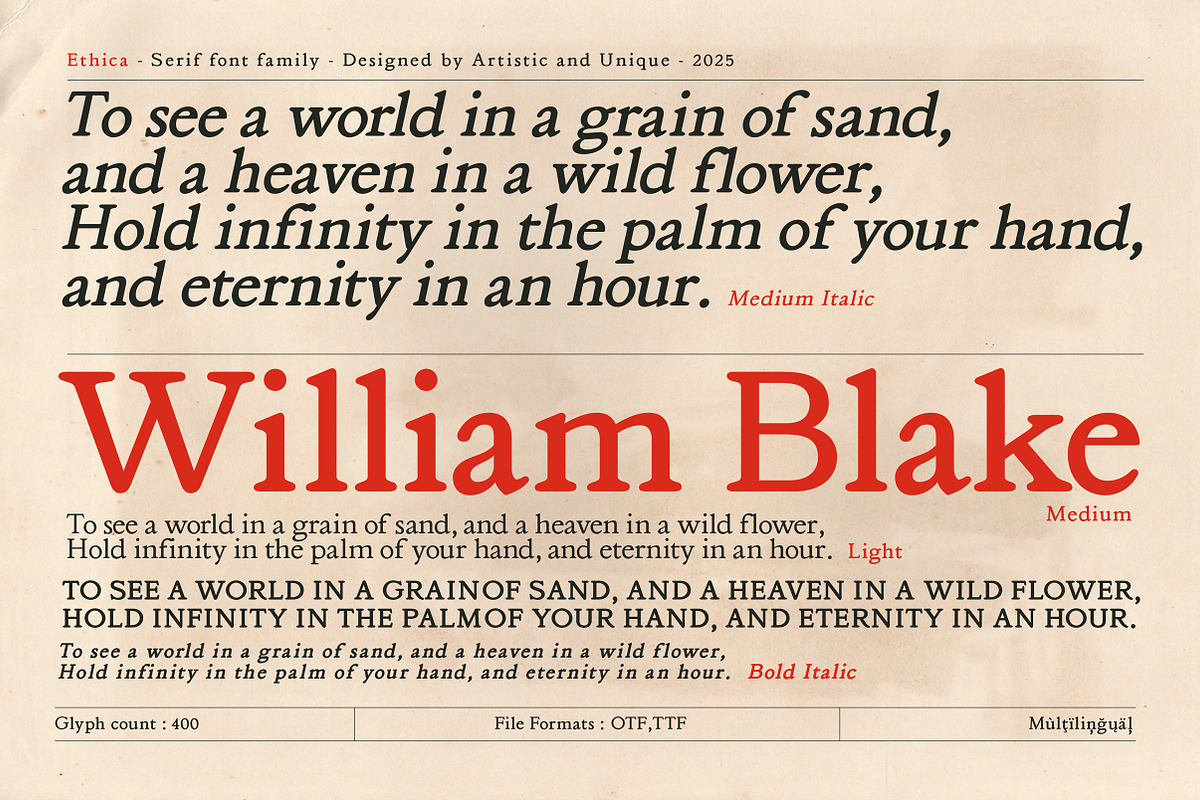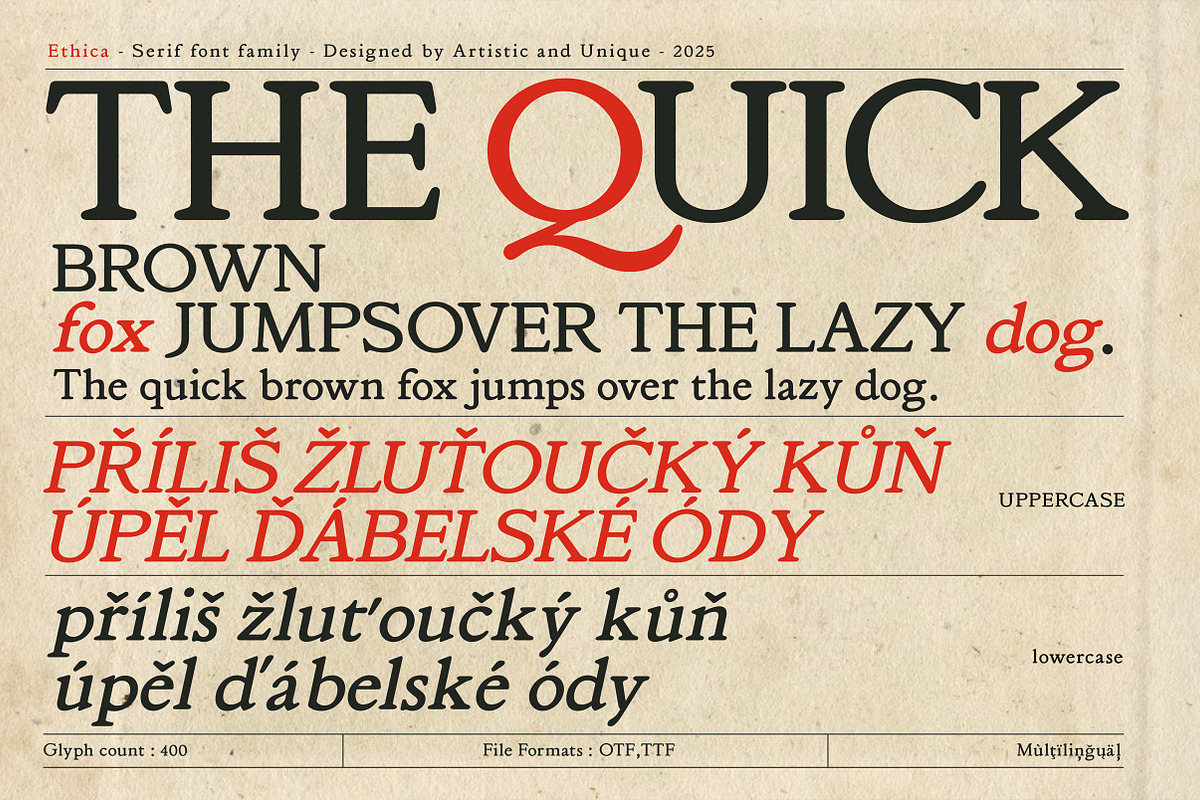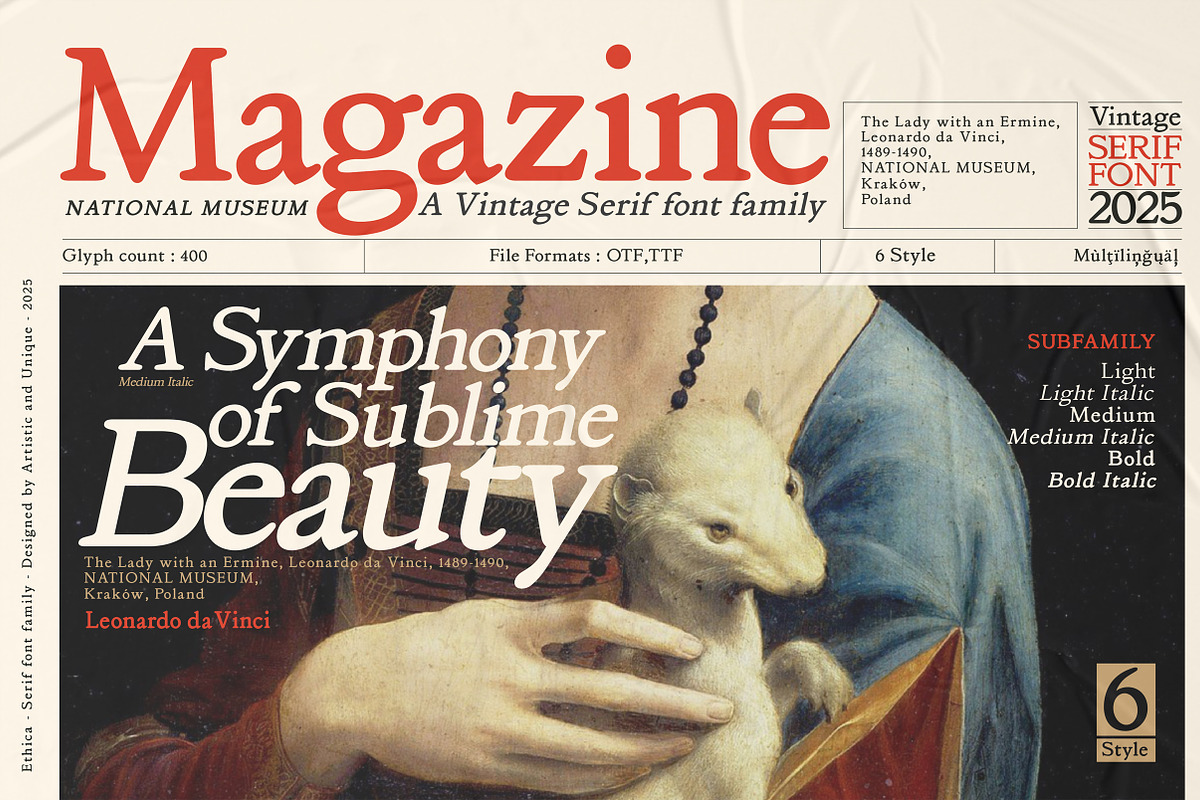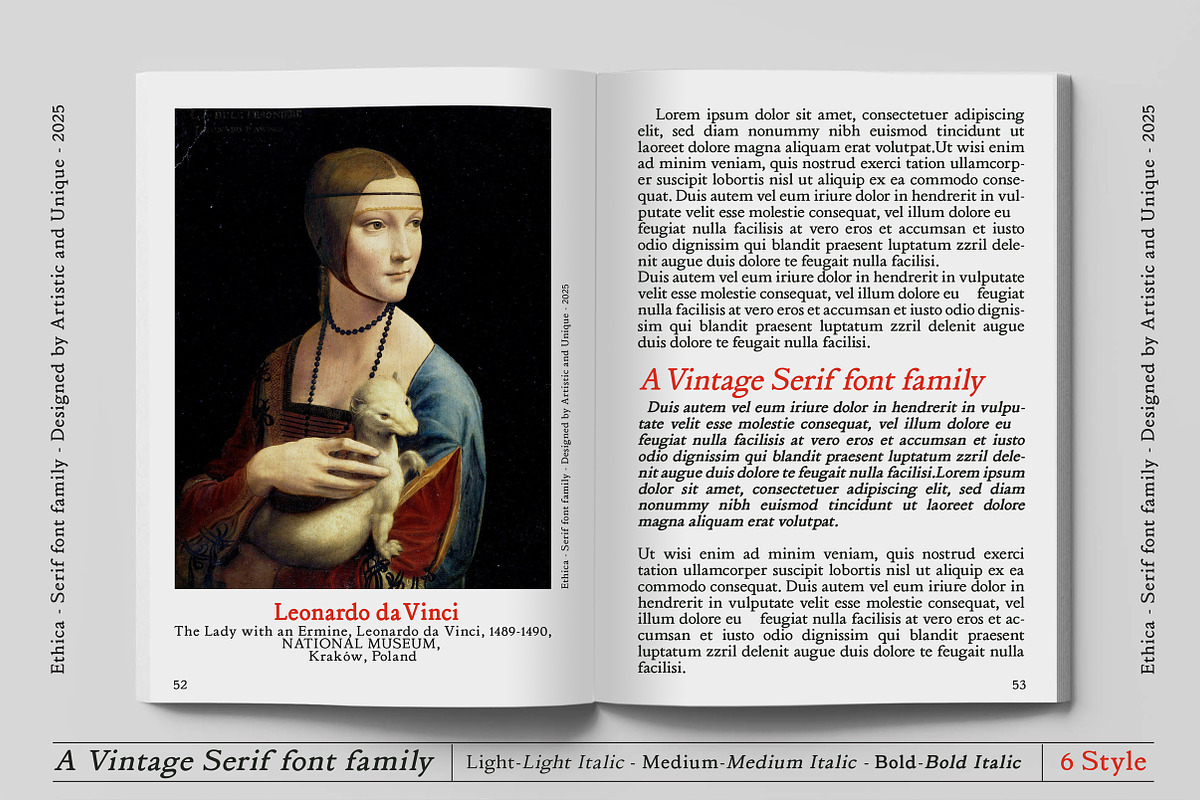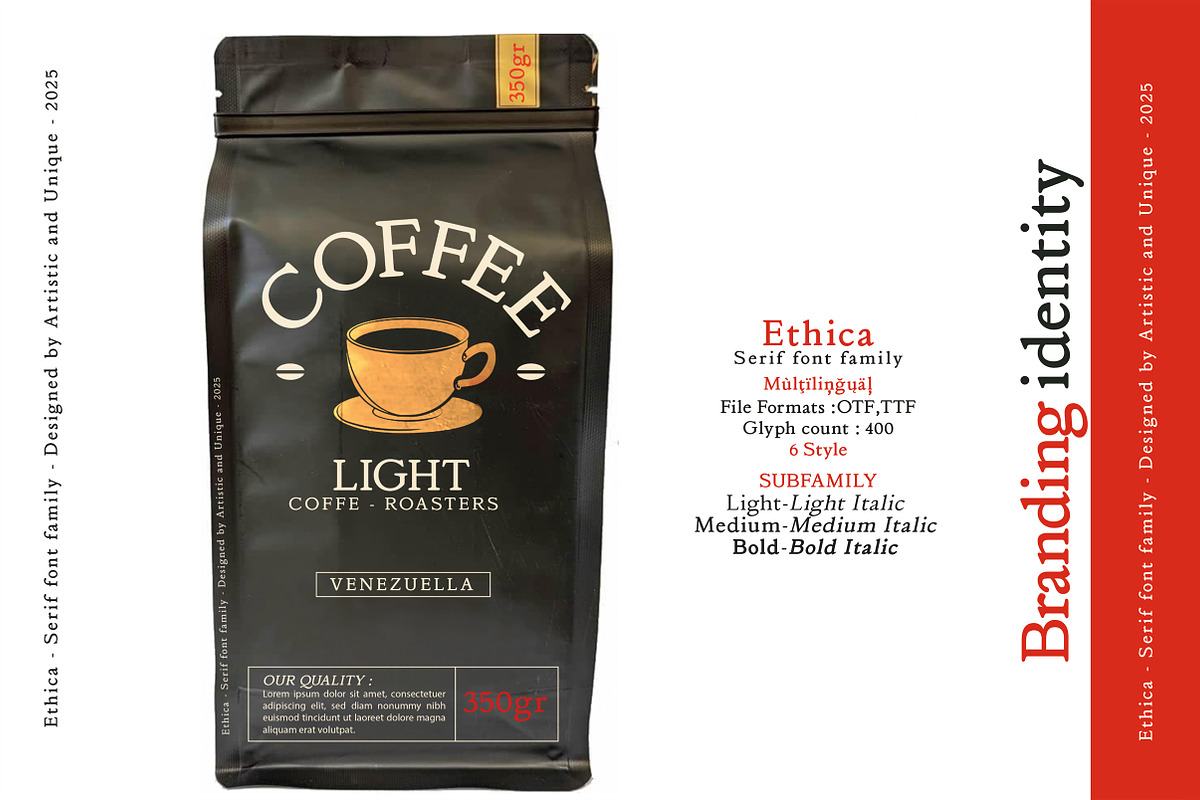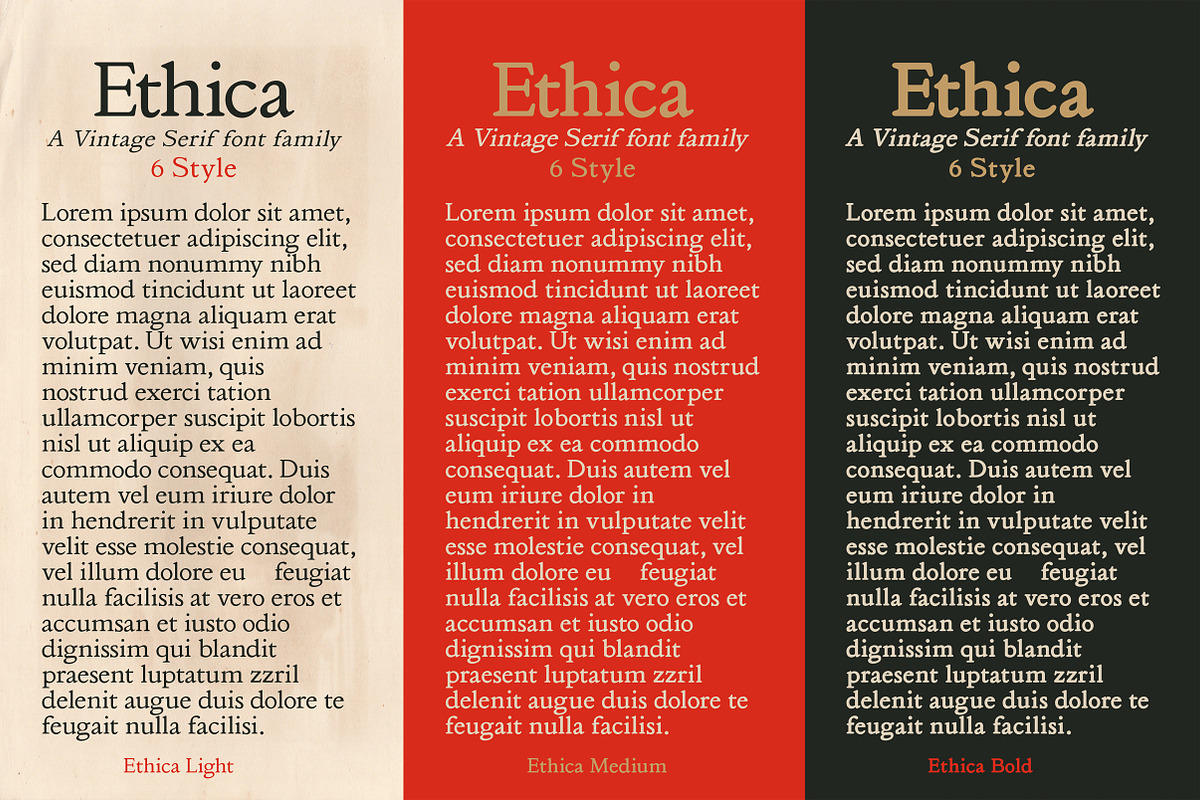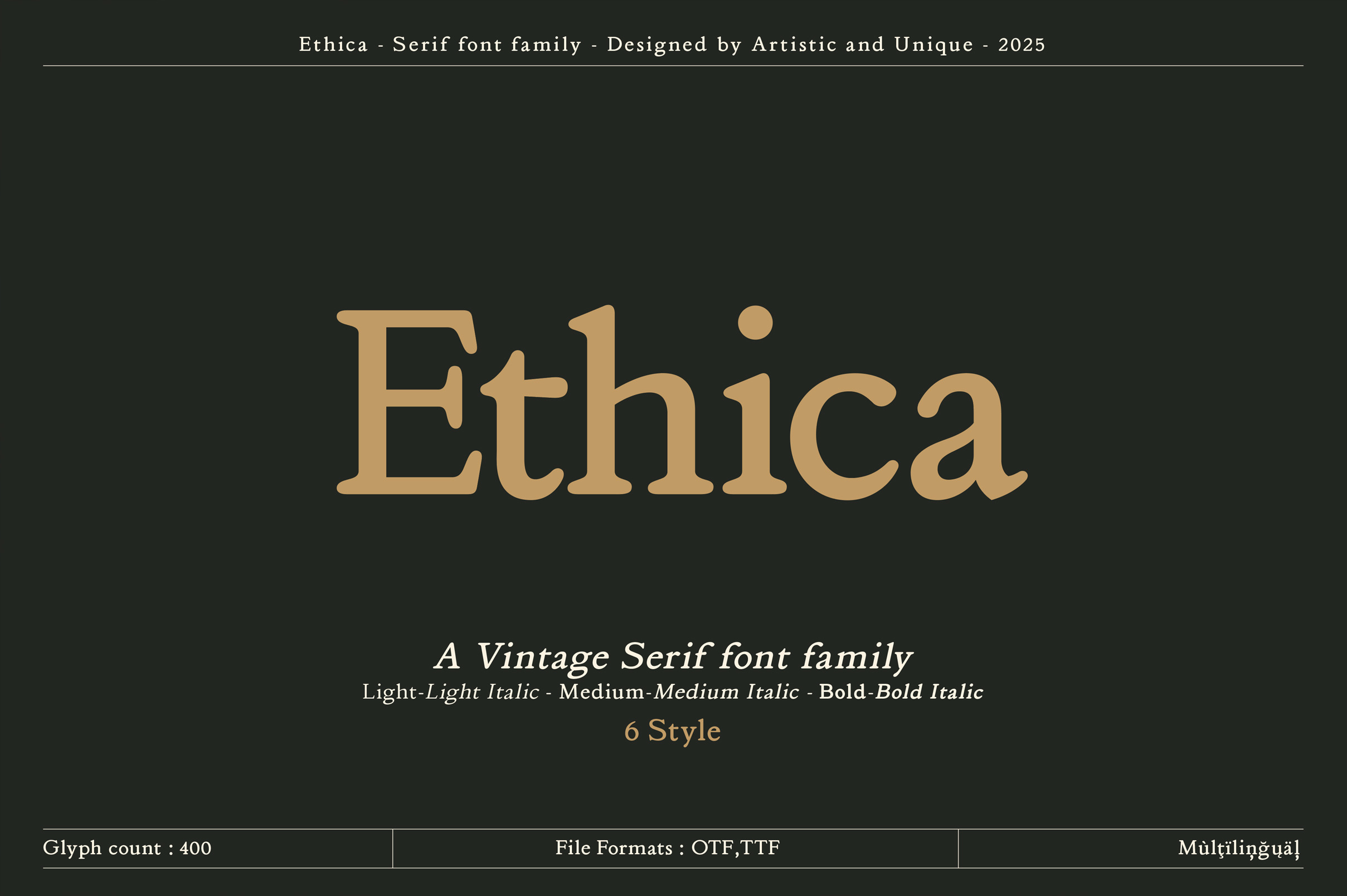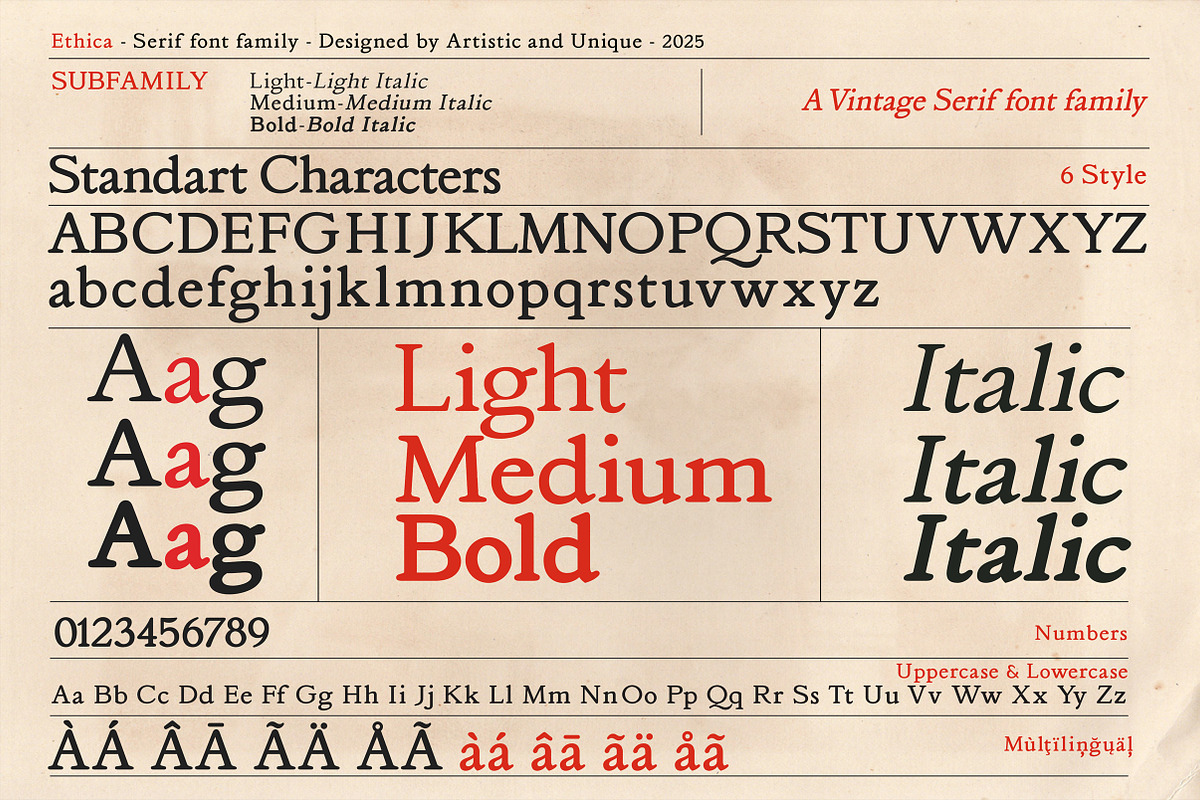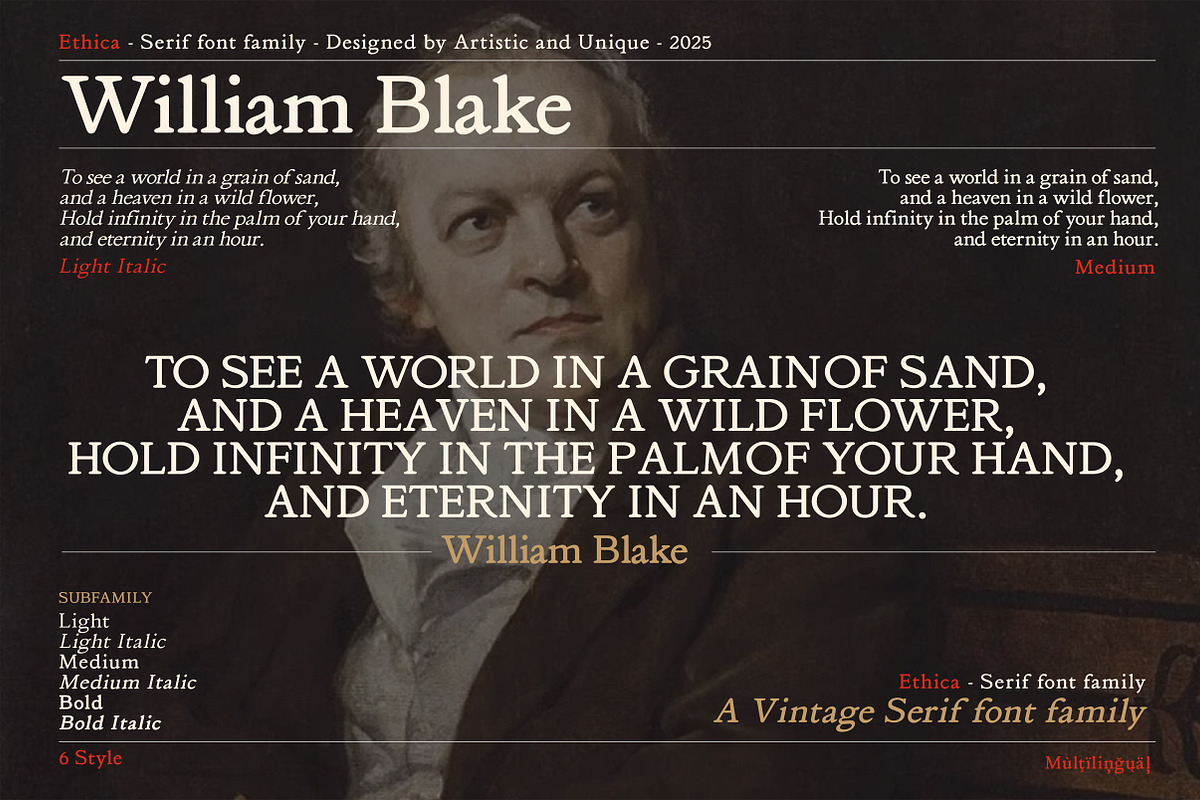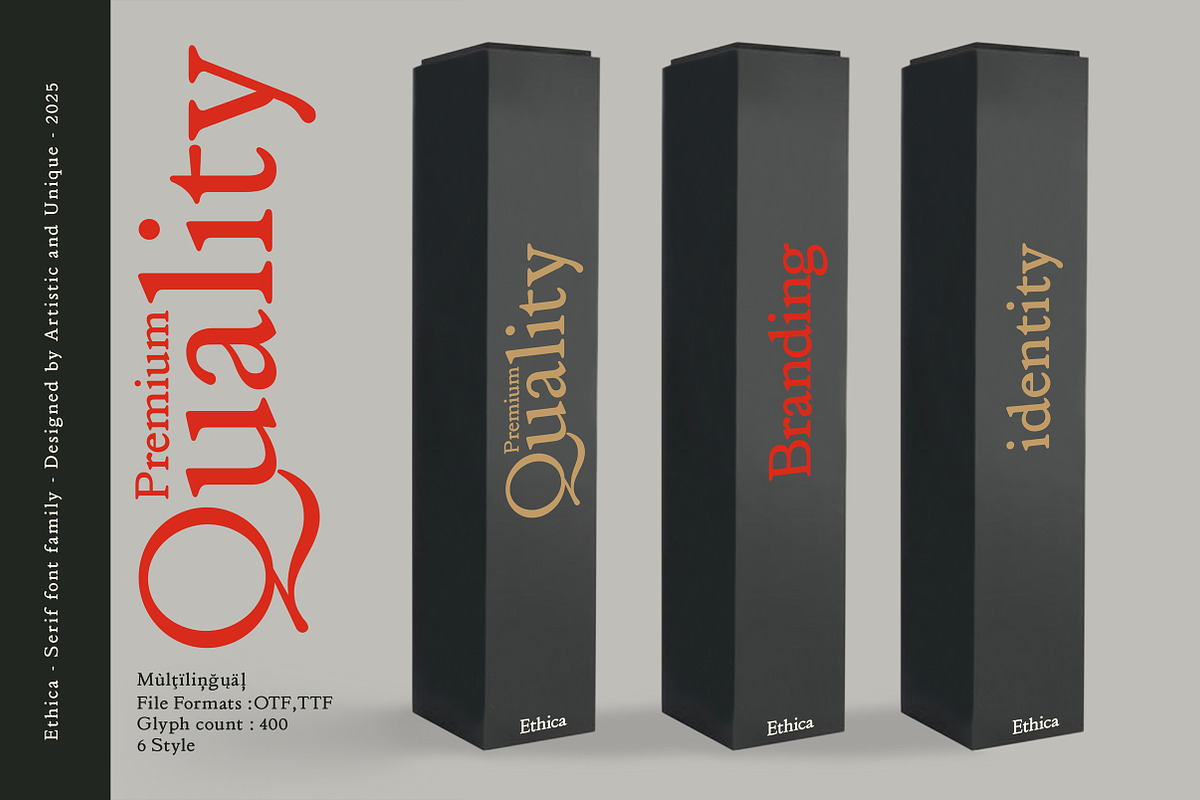
Ethica - Serif font family
Ethica - Serif font family - 6 Styles - Multilingual support.
Ethica is a vintage serif font family. This serif font with soft curves is ideal for projects that aim for an elegant look.
This font comes with multilingual options, 6 styles and rich glyph options.
While you can easily use standard characters in plain texts, you can also create aesthetic styles with alternative weights. Depending on the purpose of use in typographic compositions you will create; You can also create stylish looks in your book or magazine projects in creating brand identity. This font, which has easy readability, provides flexibility in all your projects with its classic structure.
Especially for editorial, magazine, book, branding, identity, packaging, logo design, web design, titles, movie titles, etc.
If you are looking for an elegant and vintage font, Ethica serif font can meet your needs.
FONT FAMILY :
Ethica
FONT SUBFAMILY :
Light
Light Italic
Medium
Medium Italic
Bold
Bold Italic
With this font you can create your unique designs.